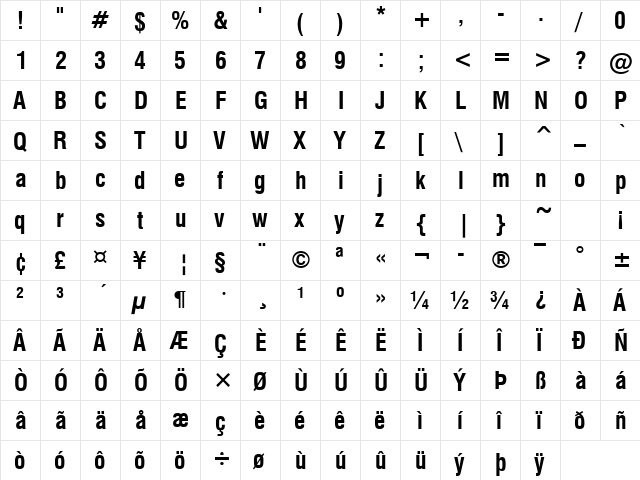
GenevaNrw Bold
Design Context for GenevaNrw Typeface
GenevaNrw is a composed and adaptable typeface that performs quietly and consistently across a wide range of design contexts. The heavy weight commands attention and anchors typographic hierarchies.